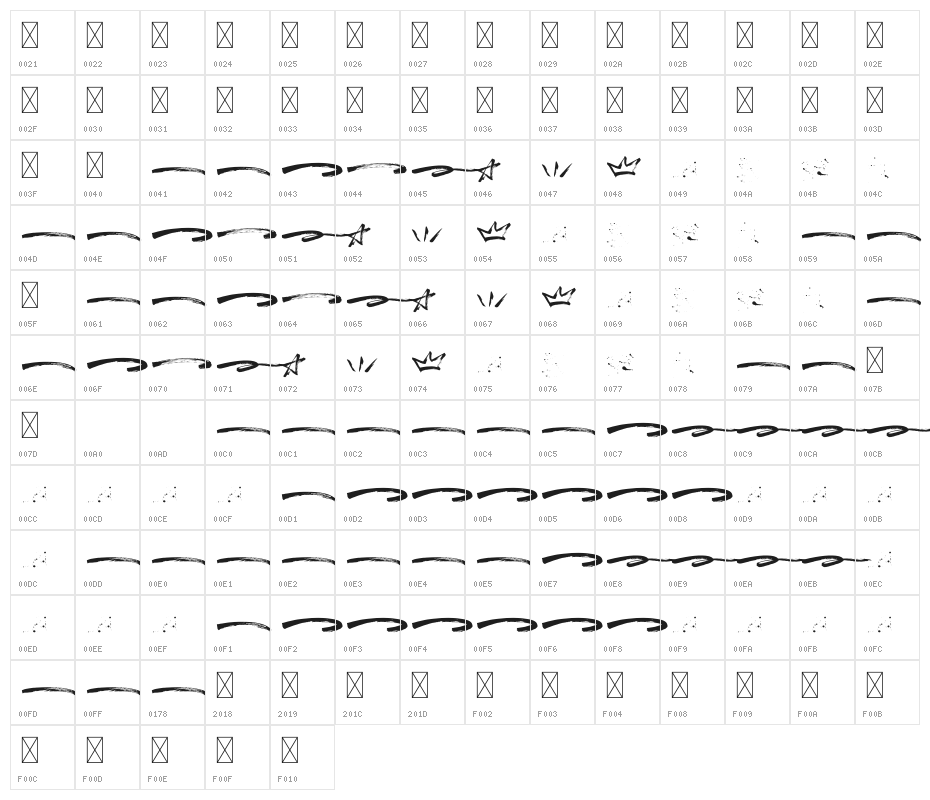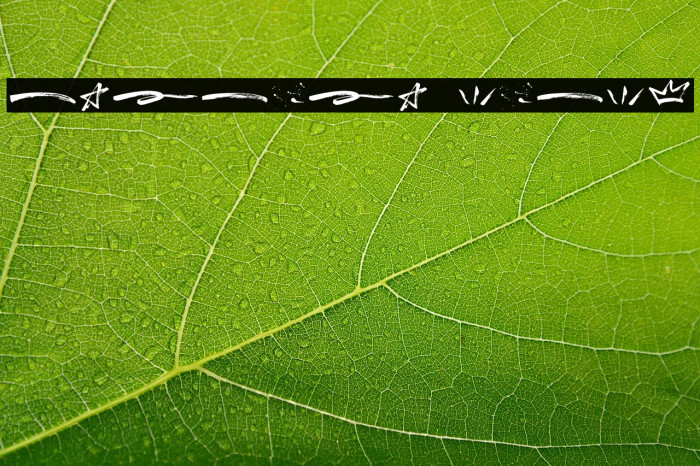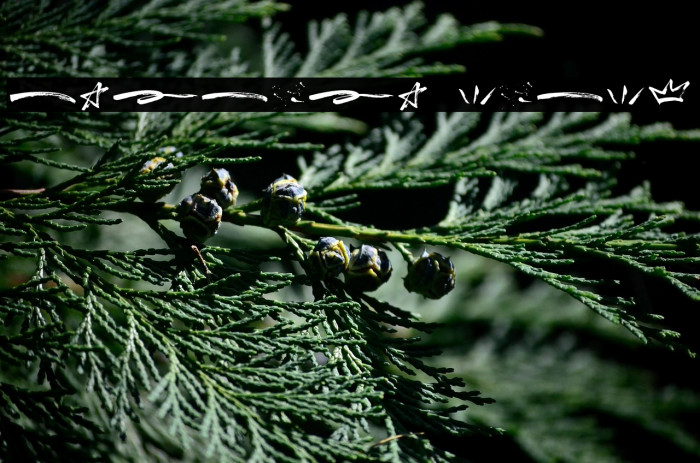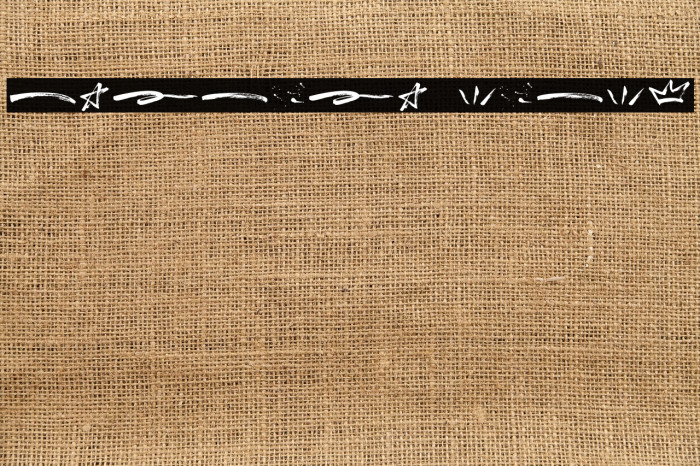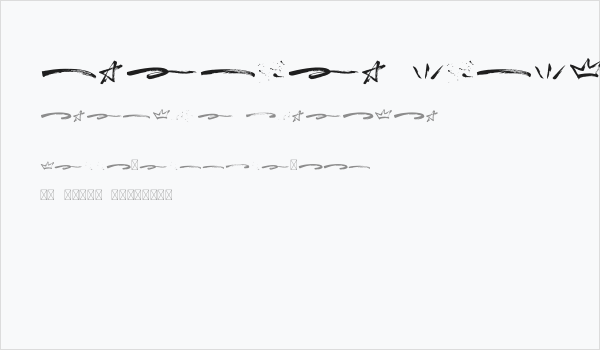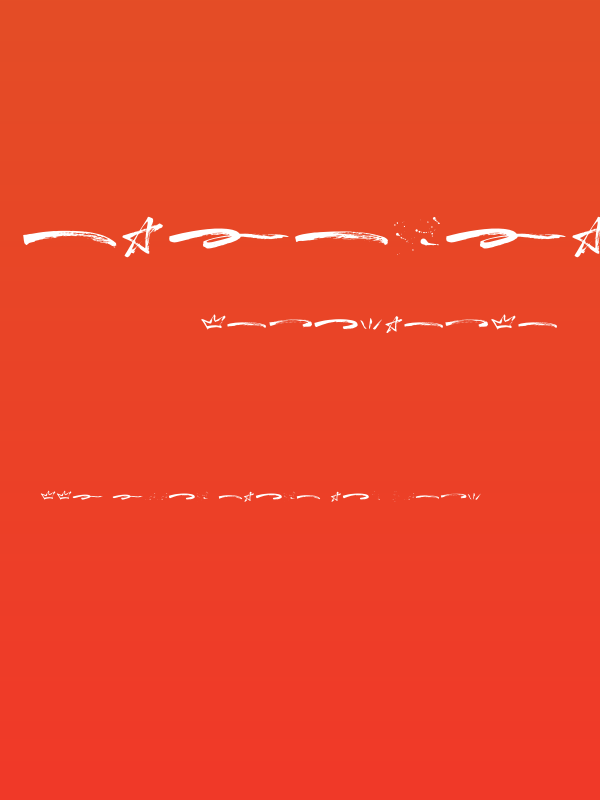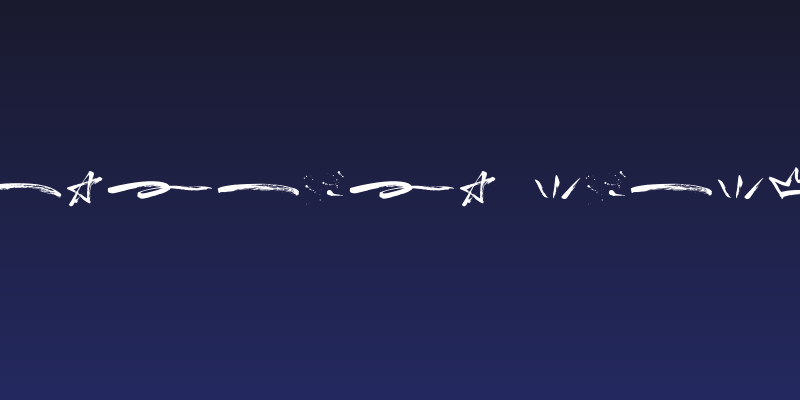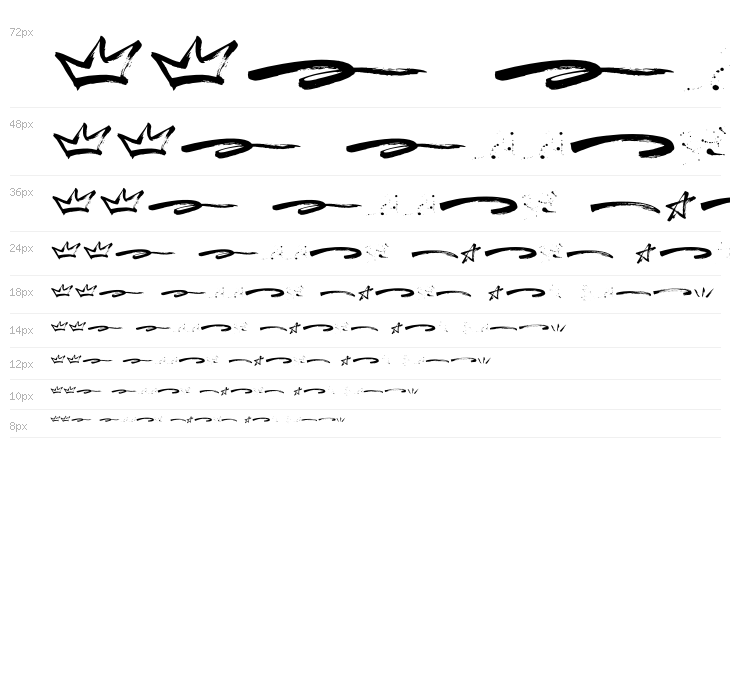
Breaker Swash Font
Breaker Swash Description
This design features a decorative and artistic style, incorporating elements that resemble brush strokes and abstract shapes. The lines are fluid and dynamic, suggesting movement and creativity. The use of stars and crowns adds a whimsical and playful touch, making it suitable for artistic and creative projects. The overall appearance is unique and eye-catching, with a handcrafted feel that emphasizes individuality and expression.
| Use Case | Logos, Artistic projects |
| Proposed Projects | Ideal for creative projects such as invitations, artistic branding, or decorative posters. |